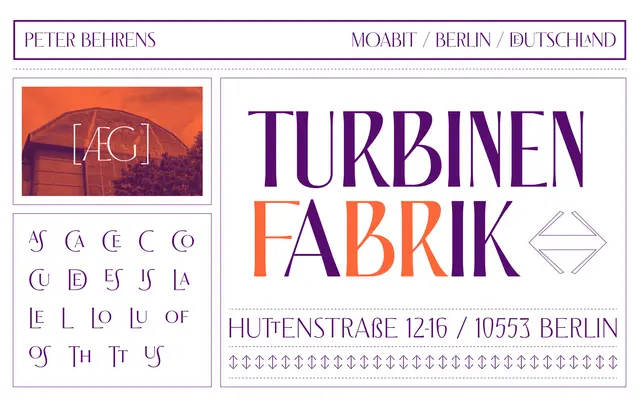
Seminario
An all-caps display typeface drawn from a 1912 headline in Mexico's La Revista de Revistas, with discreet flared serifs and an Art Nouveau sensibility.
Originally commissioned for the Latin American restaurant Curiosa by Jean-Georges at the Four Seasons Doha, Seminario takes its formal cues from early twentieth-century Mexican magazine typography. Its low contrast, feather-light strokes and carefully considered alternate sets — including floating capitals, underlined forms and roman capitals — make it best suited to large-scale, short-text applications. The family spans nine weights from Thin to Black, available as static cuts or as a single variable font.
Seminario is an all-caps display typeface with flared serifs and low contrast drawn from a 1912 Mexican magazine headline, placing it firmly in the Art Nouveau display tradition rather than a conventional serif or sans-serif category.